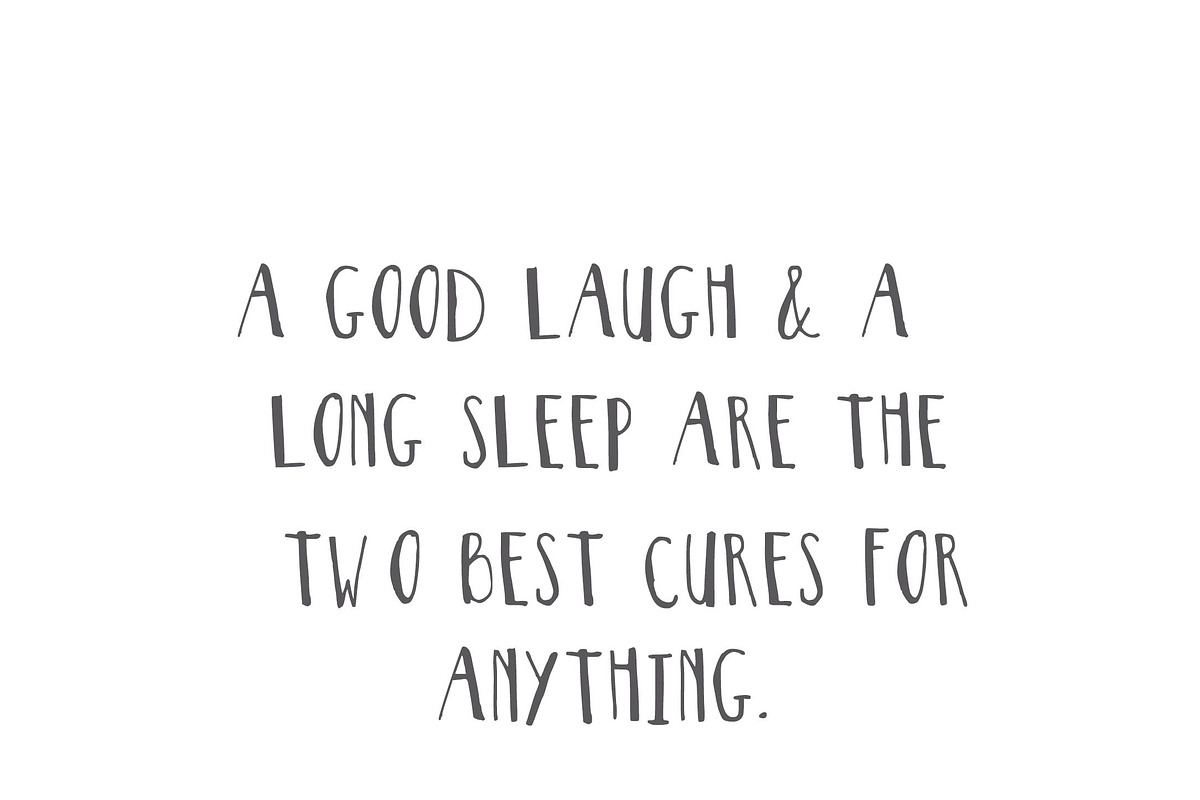
Thinster Typeface - handwritten font
Thinster Typeface - handwritten font by Sweet Little Muse is a font selected for branding, posters, packaging, typography.
Why Thinster Typeface - handwritten font is worth a look
Thinster Typeface - handwritten font by Sweet Little Muse fits naturally into Branding, posters, packaging, typography.